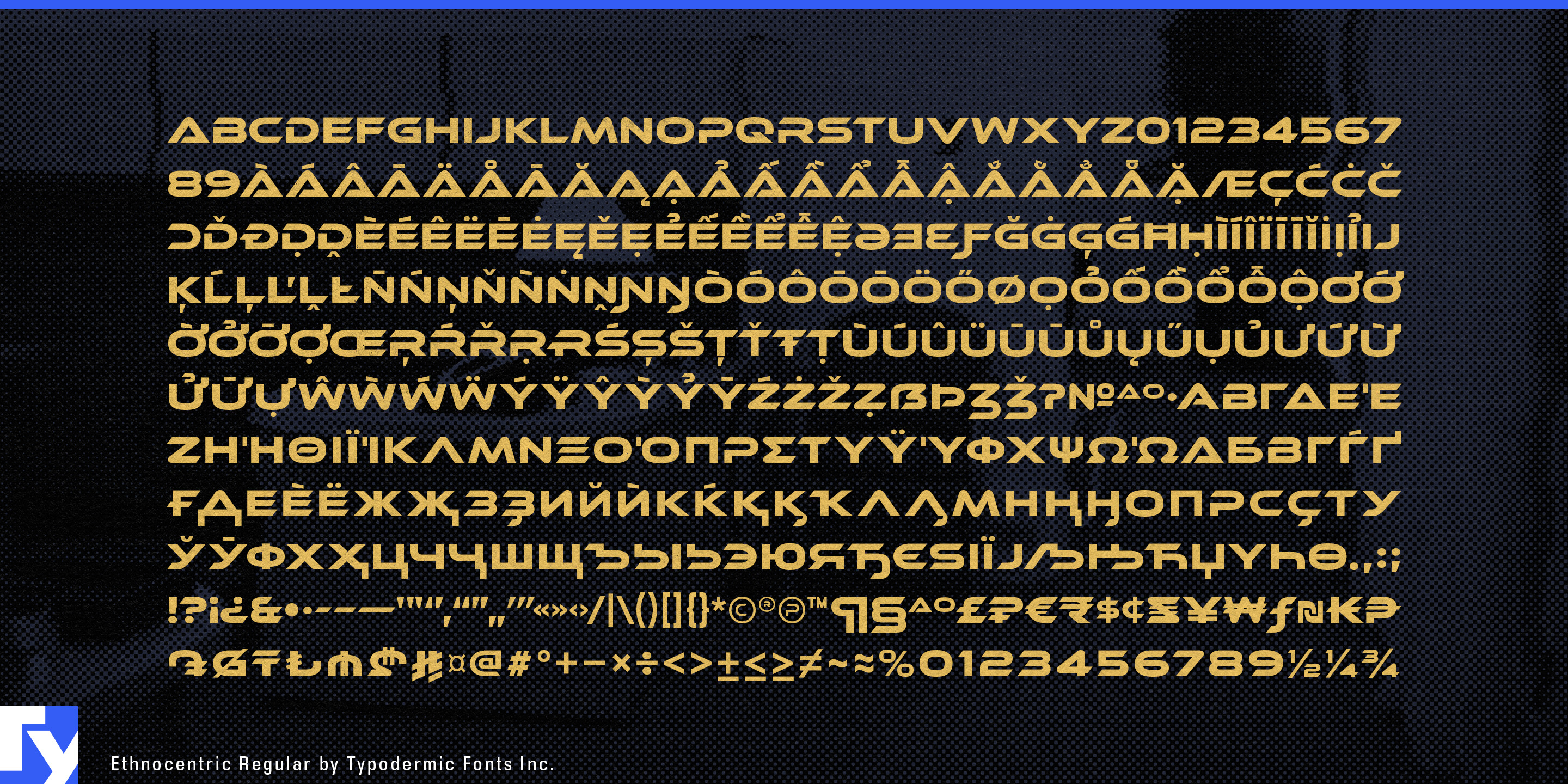
Ethnocentric
Some typefaces have to establish their visual language from scratch. Ethnocentric arrives with decades of associations already attached. Its wide proportions, separated strokes, angled terminals, and emphatic geometry have become familiar shorthand for advanced technology, speed, engineered performance, and competition. For projects that need those ideas to register immediately, that familiarity can be useful rather than something to disguise.
Performance sporting equipment is especially natural territory. Pickleball and padel paddles, tennis rackets, hockey sticks, skis, snowboards, bicycle frames, wheels, helmets, fishing gear, golf shafts, and connected fitness equipment all need model names and technology labels that can hold their own against carbon fibre, molded plastics, machined components, and technical graphics. Ethnocentric can move from the product itself into packaging, retail displays, comparison graphics, athlete campaigns, and sporting-goods exhibition booths.
The same visual vocabulary works for sports in which equipment and technology are part of the spectacle. Motorsport broadcasts, cycling events, drone racing, esports, track cycling, winter sports, and engineering competitions need athlete introductions, category names, timing graphics, arena displays, sponsor walls, pit signage, and event identities.
Advanced mobility extends the idea beyond competition. Performance e-bikes, electric motorcycles, lightweight delivery vehicles, racing EVs, autonomous shuttles, and experimental transport platforms can use Ethnocentric across frames, fairings, battery housings, charging equipment, fleet graphics, helmets, and launch environments. Robotics tournaments, autonomous-racing series, drone competitions, and university engineering challenges sit directly between mobility, technology, and sport.
Energy technology provides a larger industrial stage. Grid batteries, high-power charging systems, hydrogen equipment, fusion demonstrators, and next-generation power systems can use Ethnocentric for technology-program names, large equipment markings, exhibition pavilions, launch stages, and demonstration facilities. Lighter styles offer a less expected route through the same recognizable construction, retaining the wide, segmented skeleton while reducing the visual volume.
Games, entertainment, and public exhibitions can use that familiarity deliberately for science-fiction titles, expansion names, vehicle classes, faction identifiers, collector packaging, convention graphics, robotics halls, aerospace demonstrations, and technology showcases.
Ethnocentric has spent years accumulating meaning in sporting goods, games, vehicles, technology graphics, and performance culture. Its value today is the speed of that recognition. When a product, competition, or technical system needs to look engineered, fast, and advanced before the audience has read the specifications, Ethnocentric already speaks the language.